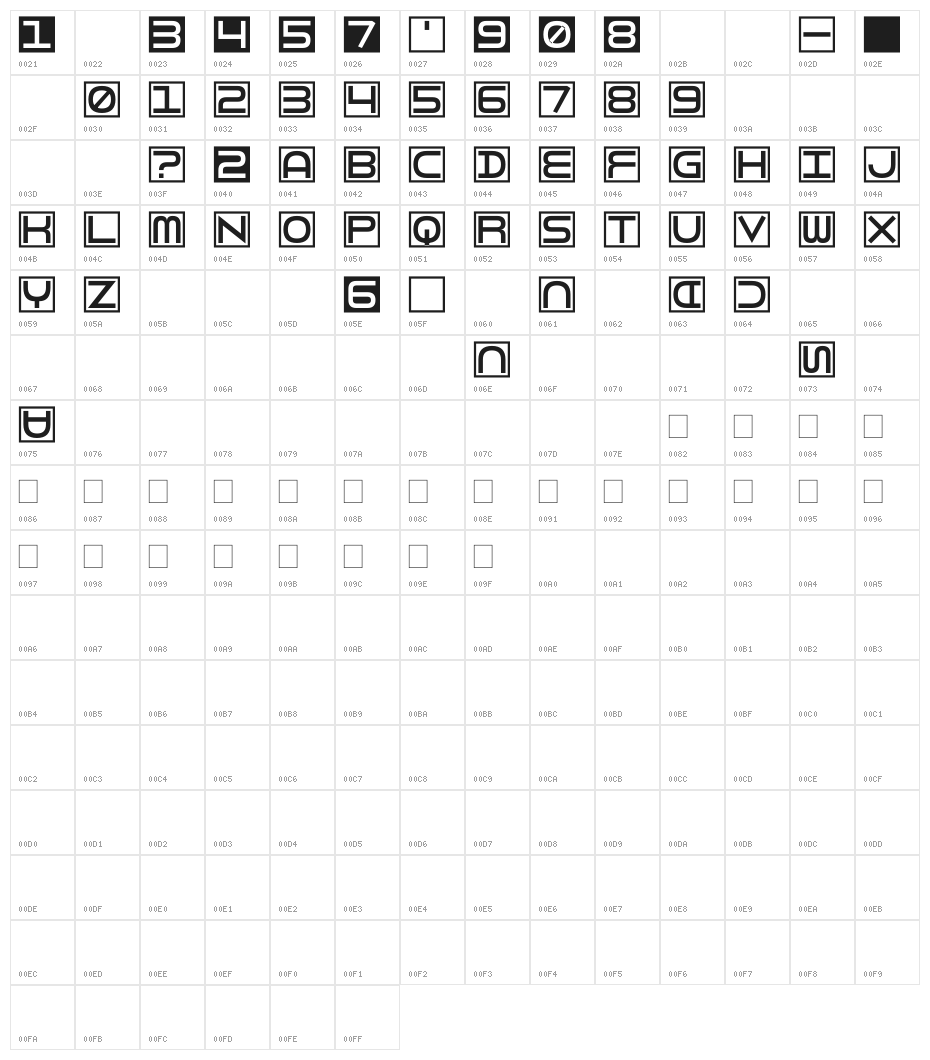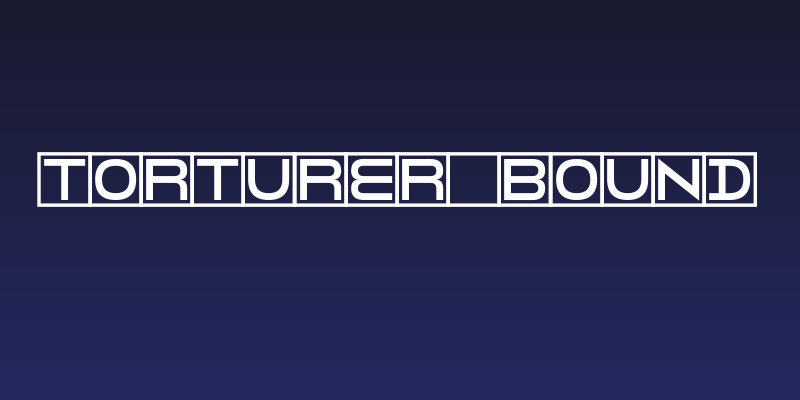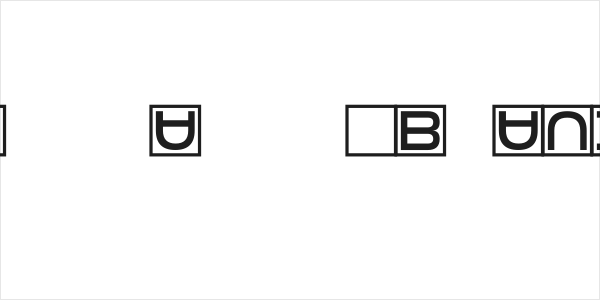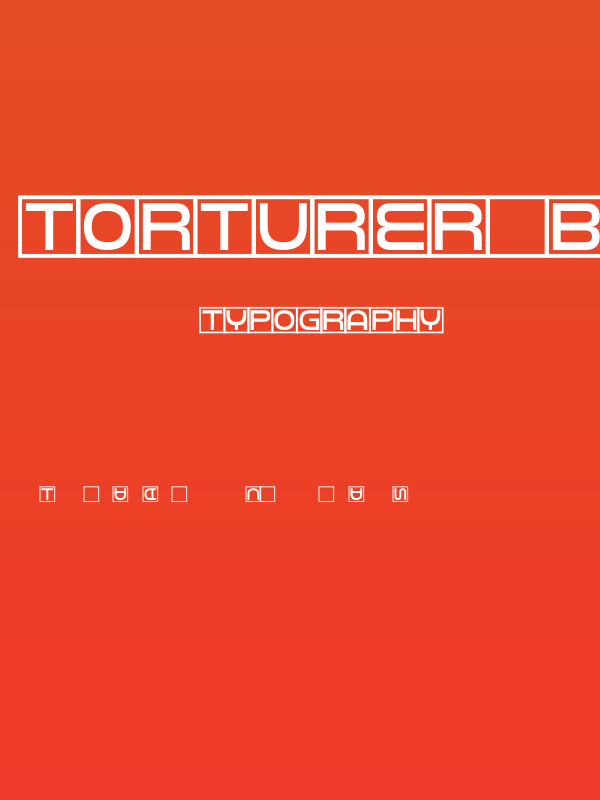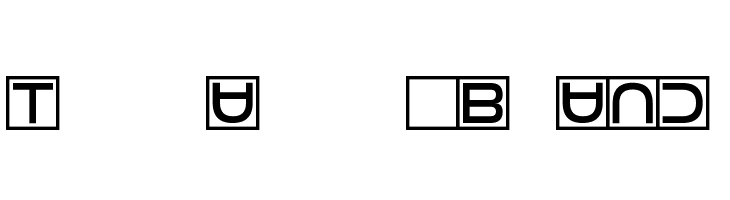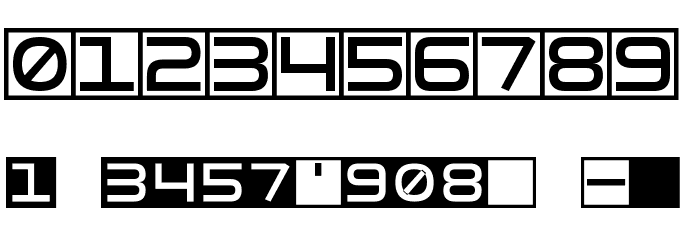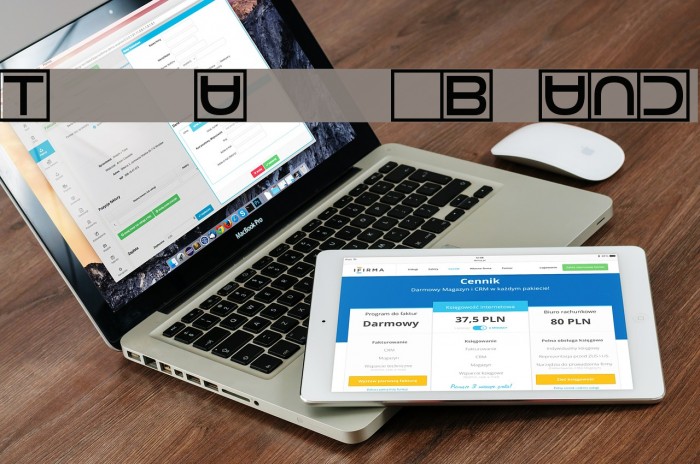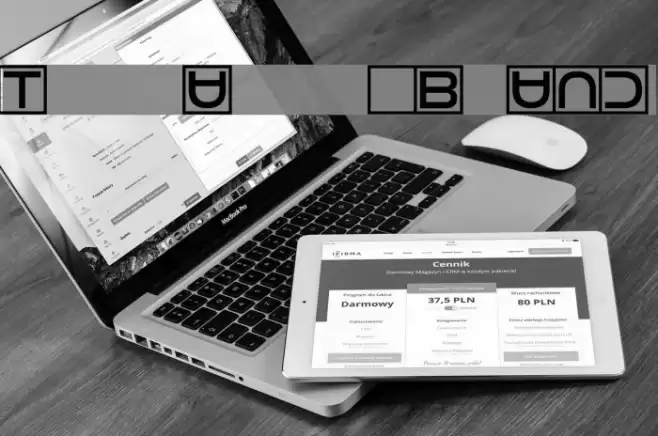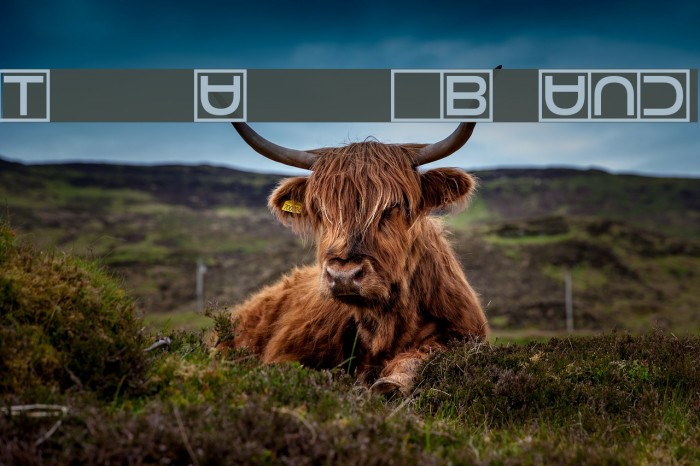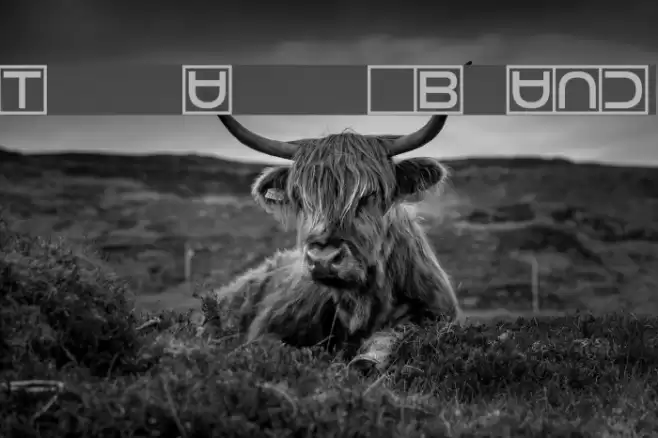
Torturer Bound Font
Torturer Bound Description
This font features a bold, geometric design with a strong emphasis on symmetry and structure. Each character is enclosed within a square or rectangular frame, giving it a distinct, boxy appearance. The lines are thick and uniform, contributing to a high contrast between the strokes and the negative space. The style is reminiscent of digital or sci-fi themes, with a modern and futuristic aesthetic. The uppercase and lowercase letters maintain a consistent height, while the numerals and special characters follow the same enclosed pattern, ensuring uniformity across the typeface. This design is highly decorative, making it suitable for attention-grabbing headlines or artistic projects.
| Overall Style | Modern, Futuristic |
| Proposed Projects | Ideal for sci-fi themed designs, video game graphics, posters, and branding that requires a modern, digital look. |